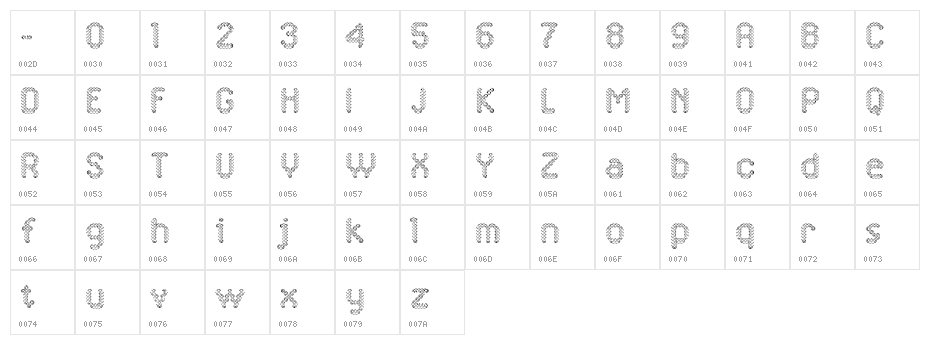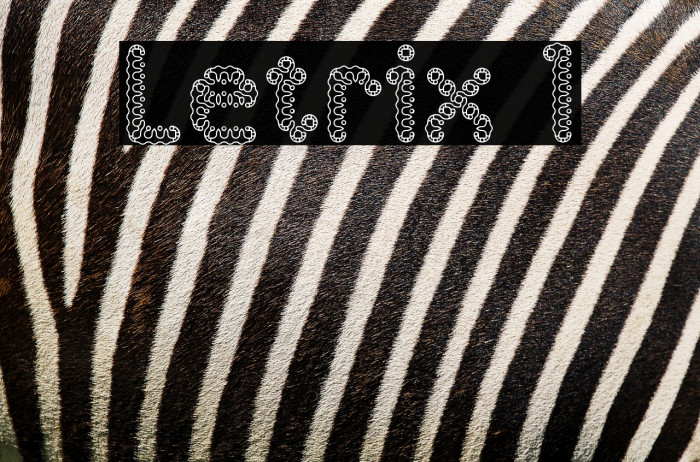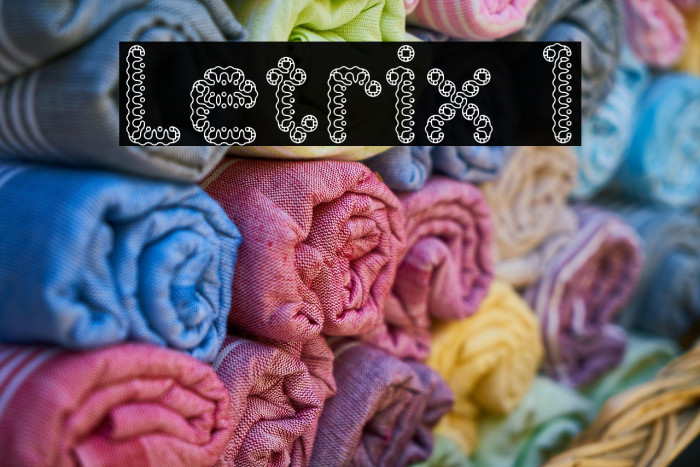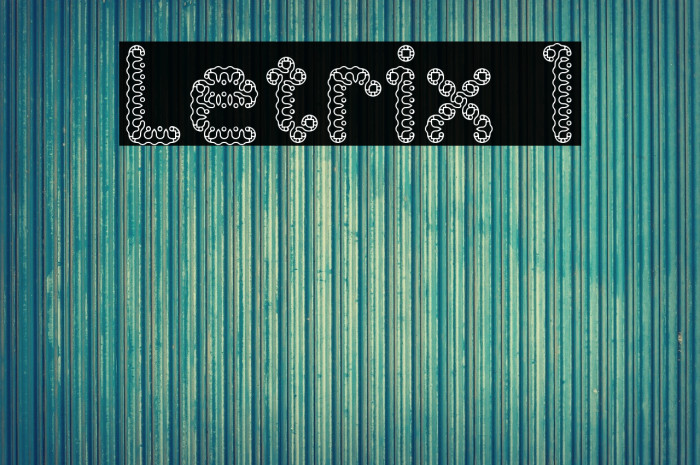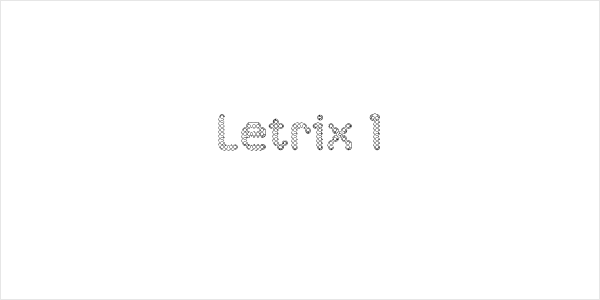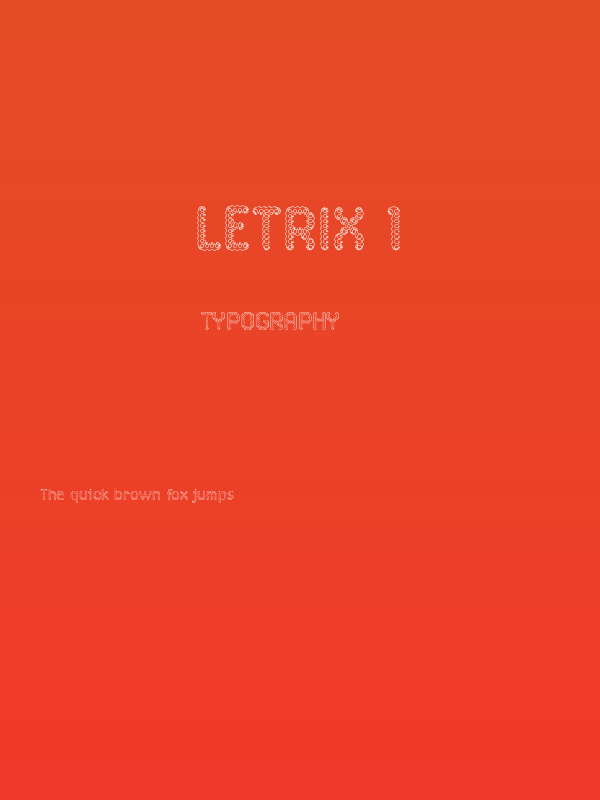
Letrix 1 Font
Letrix 1 Description
This font features a playful and whimsical design, characterized by its unique bubble-like appearance. Each character is composed of interconnected circular shapes, creating a textured and dynamic look. The font maintains a consistent thickness throughout, giving it a uniform and cohesive style. Its decorative nature makes it stand out, offering a fun and engaging visual experience. The font is suitable for creative and informal applications, where a touch of personality and flair is desired. Its distinct style ensures that it captures attention and adds a lively element to any design.
| Use Case | Logos, Headlines, Posters |
| Proposed Projects | Ideal for children's book covers, playful branding, party invitations, and creative posters. |